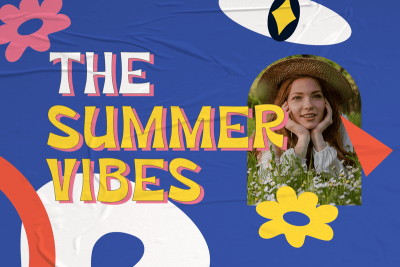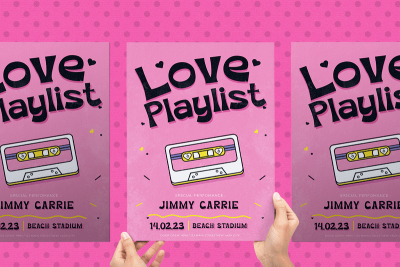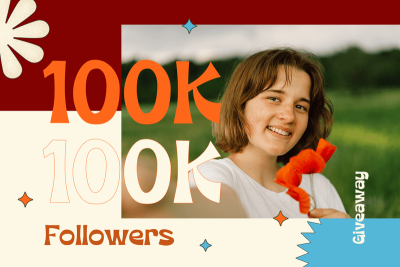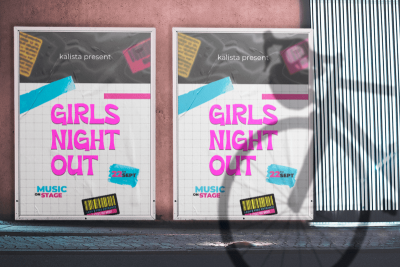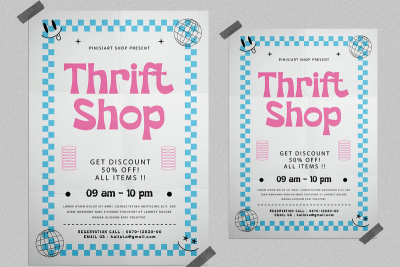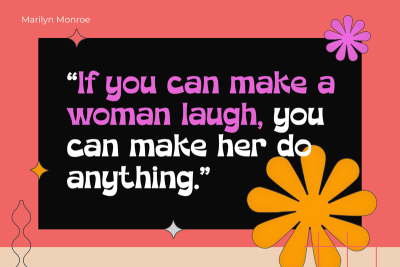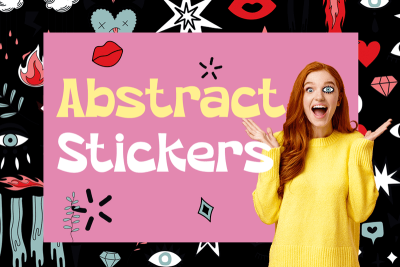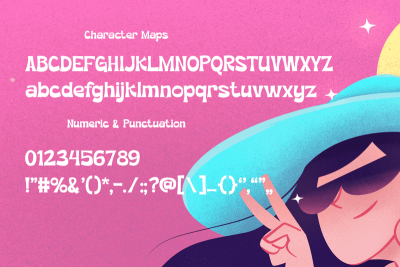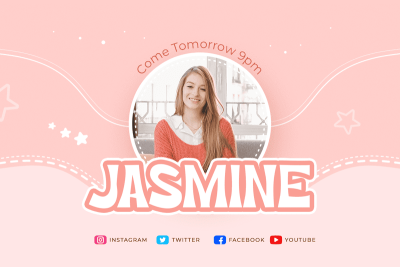
Cute font Kalista is the perfect blend of playfulness and style. With bold lines and charming curves, it easily adds youthful energy to any project. Moreover, its retro-inspired design offers a fun yet modern twist, making it versatile for various applications. Whether you are working on headlines, branding, or promotional graphics, Kalista grabs attention while conveying creativity. Additionally, each letter is crafted with precision to maintain a bold and consistent look, ensuring a professional and fun aesthetic.
This font stands out not only in digital spaces, such as websites or social media posts, but also in print materials like posters, brochures, or labels. Furthermore, Kalistaโs vibrant style is ideal for creating designs that feel fresh and engaging. Its playful aesthetic can also enhance interactive designs, such as app graphics, delivering a memorable and visually exciting experience. Importantly, Kalista’s adaptability makes it a reliable choice for creative professionals seeking to express individuality while maintaining a polished design standard. You can also pair it with complementary fonts to create unique visual combinations that draw even more attention to your work.
Cute Font Kalista Suitable For
Kalista is perfect for brands targeting youthful or creative audiences. For instance, it works exceptionally well for fashion labels, toy companies, and lifestyle products. Event organizers can also use it for vibrant invitations, posters, or banners. Similarly, educators and content creators can bring life to materials like presentations or digital graphics. Additionally, Kalistaโs bold and playful design ensures that it resonates well with childrenโs brands or family-focused campaigns.
In addition, the font is great for DIY projects and playful themes. For example, itโs ideal for seasonal campaigns, back-to-school promotions, or childrenโs book covers. Thanks to its cheerful design, Kalista adds personality to every project, helping you stand out effortlessly. Whether you are designing for personal or professional purposes, Kalista consistently delivers charm, boldness, and a touch of nostalgia that captures attention and makes every creation unforgettable. Its universal appeal ensures it will enhance any visual project you have in mind.